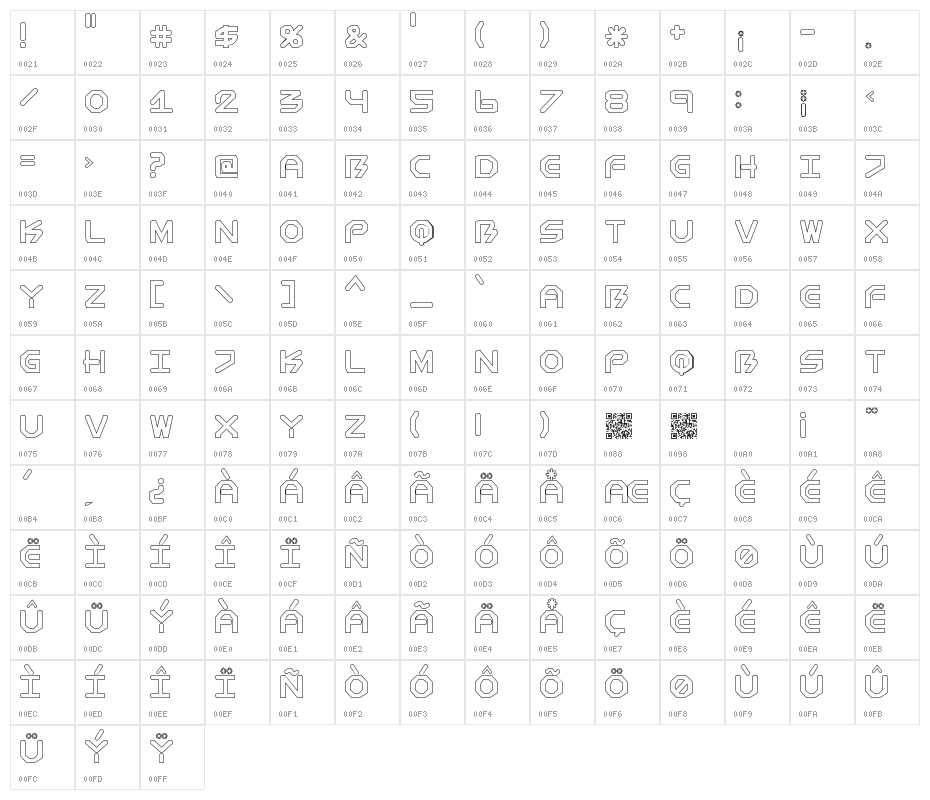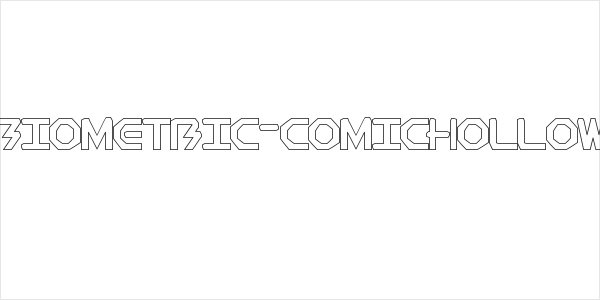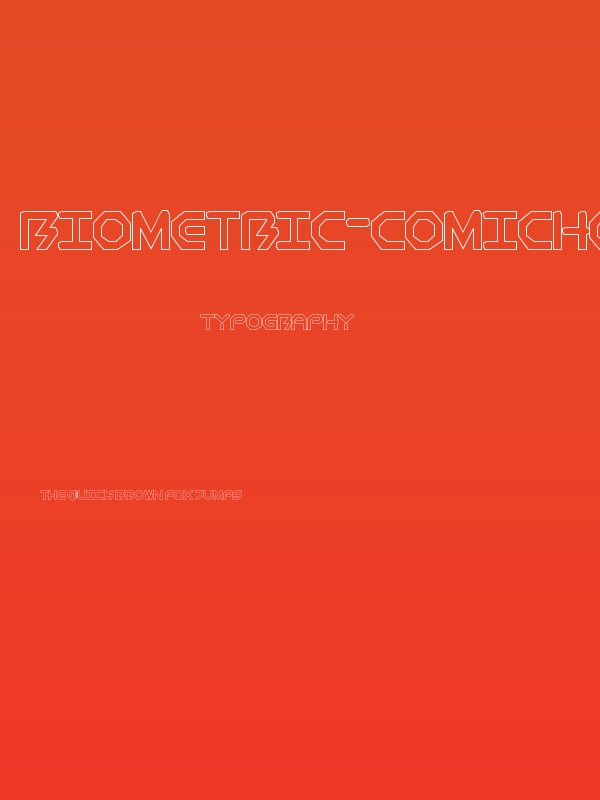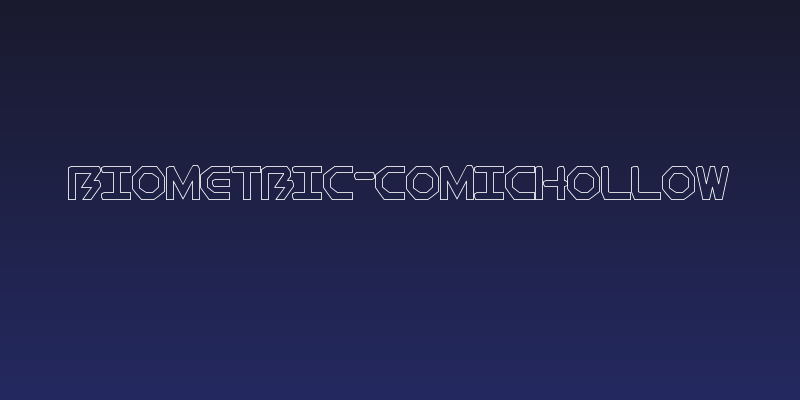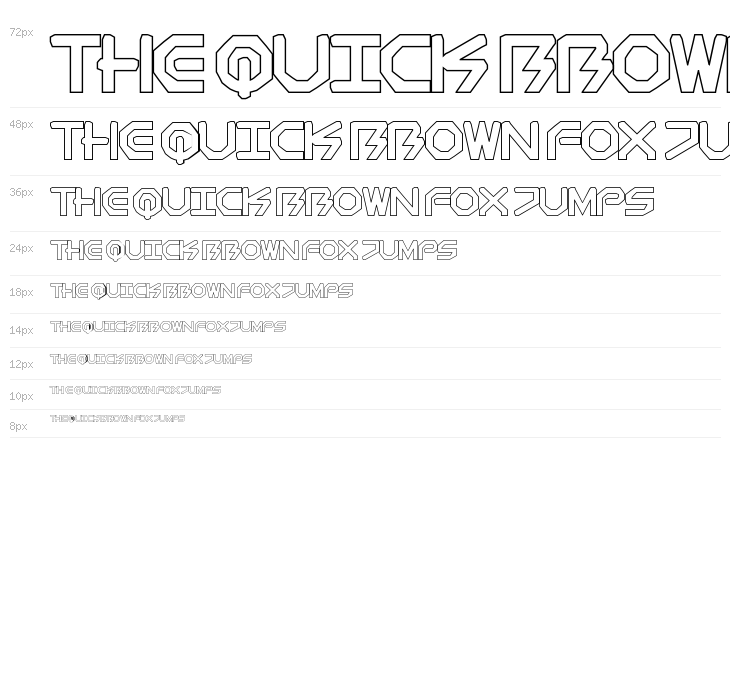
BioMetric-comichollow Font
BioMetric-comichollow Description
This font features a bold, geometric design with a hollow interior, giving it a futuristic and digital appearance. The characters are constructed with straight lines and sharp angles, creating a sense of precision and modernity. The uppercase letters are uniform in height, while the numbers and special characters maintain the same stylistic approach, ensuring consistency across all glyphs. The font's unique style makes it stand out, with each character having a distinct, angular form that is both eye-catching and readable.